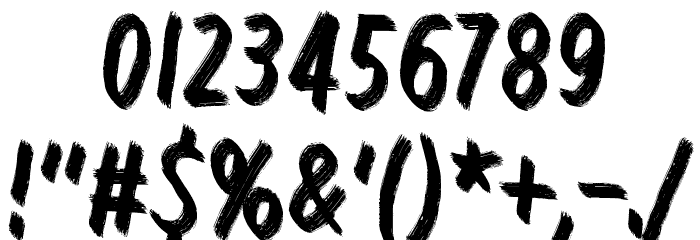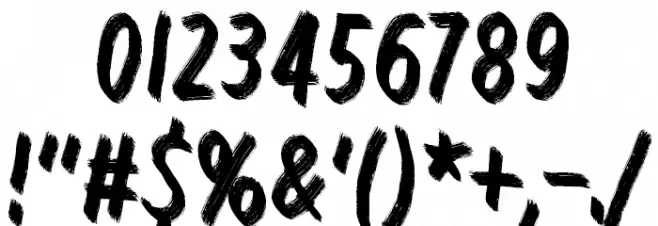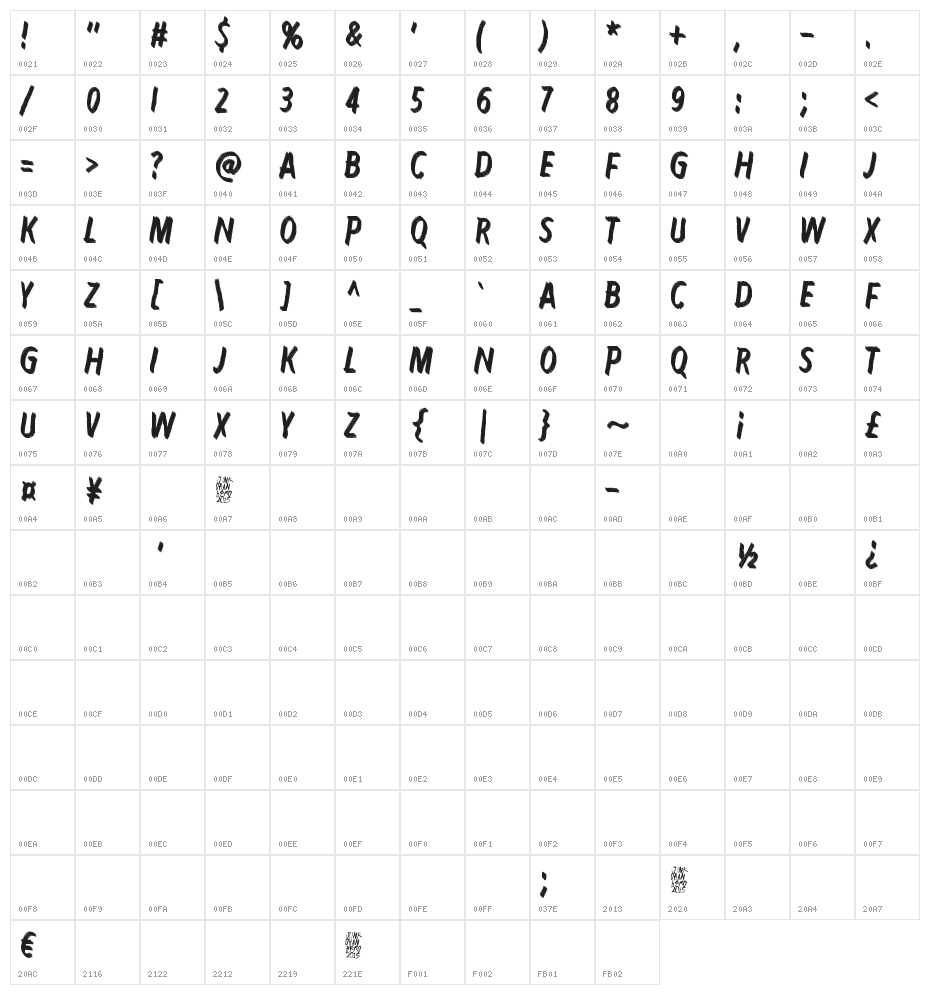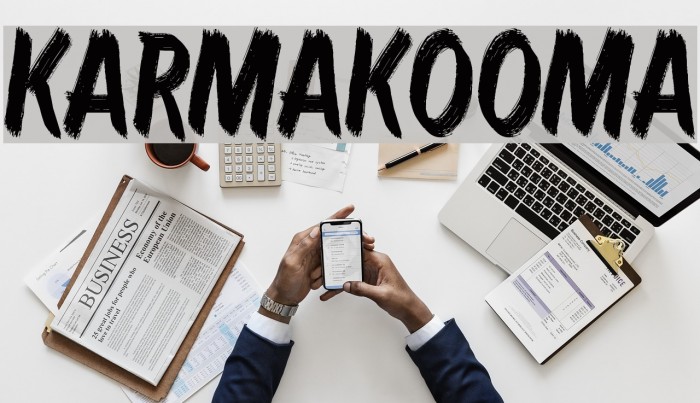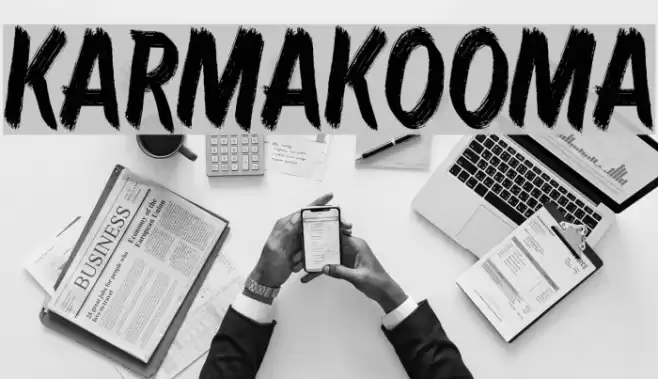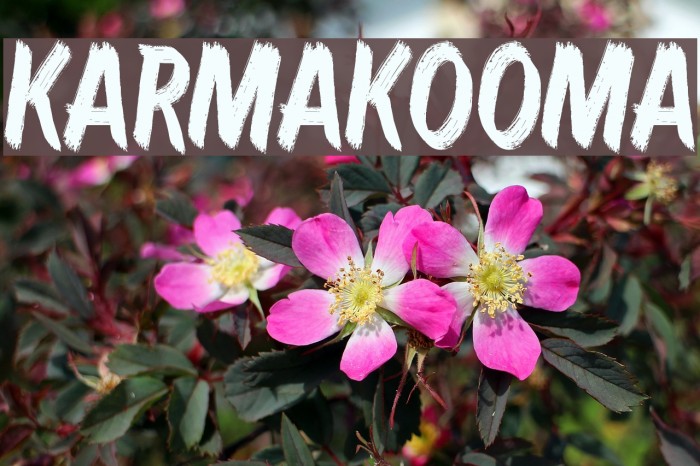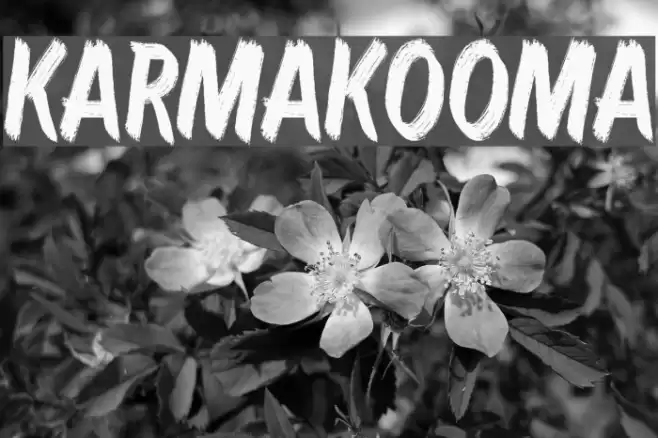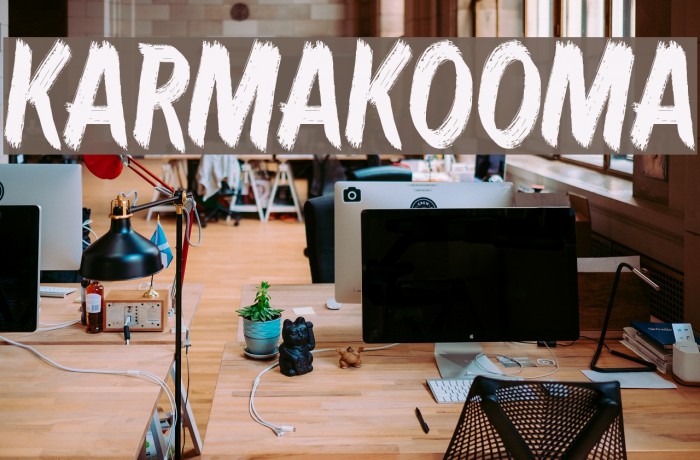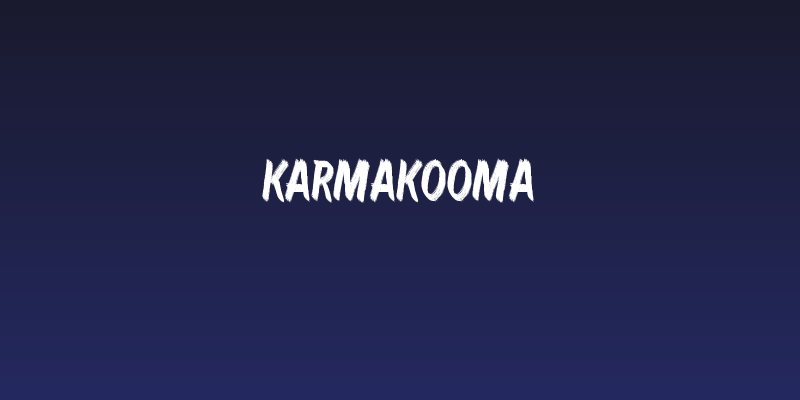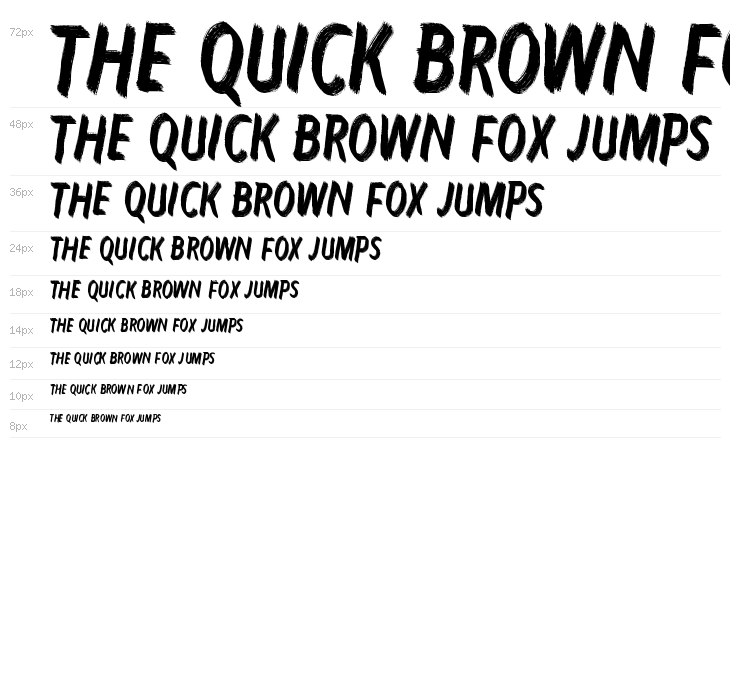
Karmakooma Font
Karmakooma Description
This font exhibits a bold and dynamic brush style, characterized by its rough, textured strokes that give it a hand-painted appearance. The letters are slightly slanted, adding a sense of movement and energy. The uppercase and lowercase characters maintain a consistent style, with the uppercase being more prominent. The numbers and special characters follow the same aesthetic, ensuring uniformity across all glyphs. This font's unique style makes it stand out, ideal for projects that require a strong visual impact.
| Proposed Projects | Ideal for posters, branding, headlines, and any design needing a bold, artistic touch. |